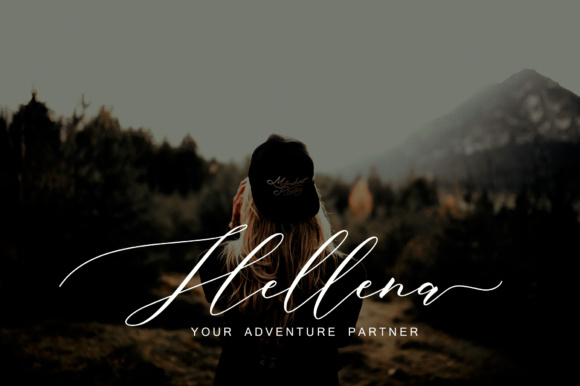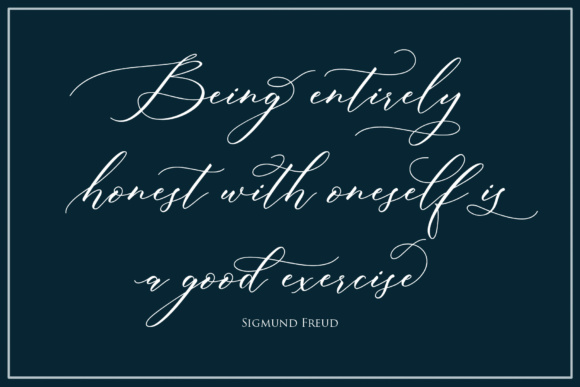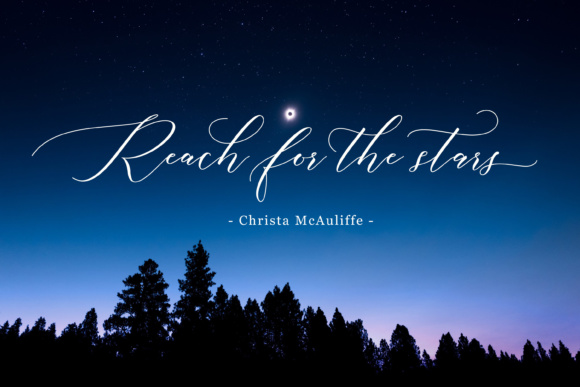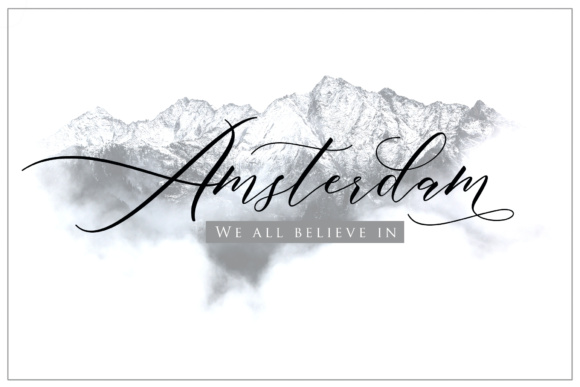
Discover the Magic of Handwritten Charm
Remember the thrill of creating a beautiful handwritten card for a loved one? The way the pen glides across the paper, leaving a trail of love and personality? That’s exactly the feeling you’ll get with the Batrisyia Script Font.
This stunning script font brings the charm of handmade calligraphy to your designs, making it perfect for greeting cards, branding materials, business cards, quotes, posters, and more. With its decorative characters and dancing baseline, Batrisyia Script Font adds a touch of elegance and sophistication to any project. Whether you’re a seasoned designer or just starting out, this versatile font is sure to become a valuable addition to your toolkit, helping you to create stunning visuals that leave a lasting impression.
Batrisyia Script Font Key Features
- Font Family: Batrisyia Script, a beautiful and elegant script font
- Unique Characteristics: Distinctive flair and swashes, ideal for creating eye-catching titles and headings
Batrisyia Script Font Review
As a designer, I was excited to dive into the world of Batrisyia Script Font, but my experience was a mixed bag. Let’s start with what works well: ✨ Beautiful connections and ✨ Elegant flourishes that give the font a touch of sophistication. The script font is perfect for those looking to add a sense of romance or luxury to their designs.
Another aspect that shines is the ✨ versatility of the font, which makes it suitable for various projects, from wedding invitations to high-end branding materials.
Limits and Drawbacks
While Batrisyia Script Font has its strengths, there are some limitations to consider: ⚠️ Difficulty in customization – The font can be tricky to customize, and some features may require advanced knowledge of font editing software.
⚠️ Limited font sizes – The font may not be the best choice for very small or very large text sizes, as it can lose its elegance and become difficult to read.
In conclusion, Batrisyia Script Font is a beautiful and elegant font that can elevate any design. However, its limitations and potential for customization difficulties may make it less suitable for certain projects or designers. If you’re looking for a script font with a touch of luxury, this might be the perfect choice for you.
Recommendation
- Best for: Luxury branding, wedding invitations, and high-end materials.
- Not ideal for: Small or large text sizes, and projects requiring extensive customization.
For a more elegant look, pair Batrisyia Script with a clean sans-serif font for body text.
For a more sophisticated look, use Batrisyia Script as a title font and pair it with a serif font for body text.
For a more elegant presentation, use Batrisyia Script as a title font and pair it with a clean sans-serif font for body text.
Batrisyia Script Font is ideal for:
Editorials and book covers
Special occasion cards and announcements
Alternatives to Batrisyia Script Font
Great Vibes is a beautiful, elegant script font that works well for titles, headings, and invitations. It has a more classic feel compared to Batrisyia Script Font, which is more modern and minimalist.
When to use: Great Vibes is ideal for projects that require a touch of sophistication and elegance, such as wedding invitations, luxury brand logos, or high-end product packaging.
Comparison: Great Vibes has a more flowing and connected feel compared to Batrisyia Script Font, which has a more disconnected and handwritten look.
Carolyna Pro is a modern script font that is perfect for creating a sense of luxury and sophistication. It has a more refined and polished look compared to Batrisyia Script Font, which is more playful and casual.
When to use: Carolyna Pro is ideal for projects that require a high-end feel, such as luxury brand logos, high-end product packaging, or upscale business cards.